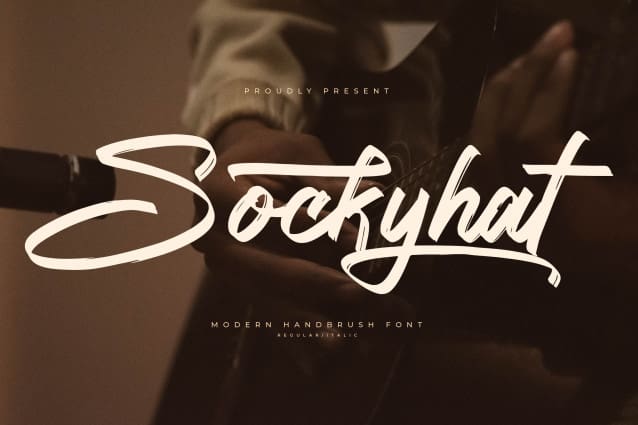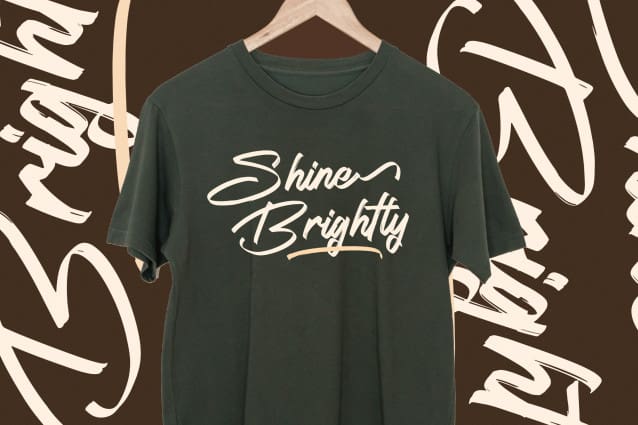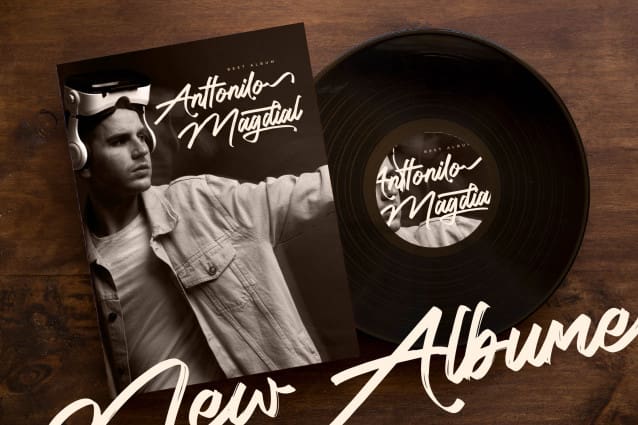
Sockyhat Handbrush Font
Sockyhat Handbrush – Modern Handbrush Font , from Letterena, is a Luxury Script font, suitable for any projects such as: logos, branding projects, homeware designs, product packaging, mugs, quotes, posters, shopping bags, t-shirts, book covers, name card, invitation cards, greeting cards, label, photography, watermark, special events, and all your other luxury and beautiful projects that need a Luxury serif taste.